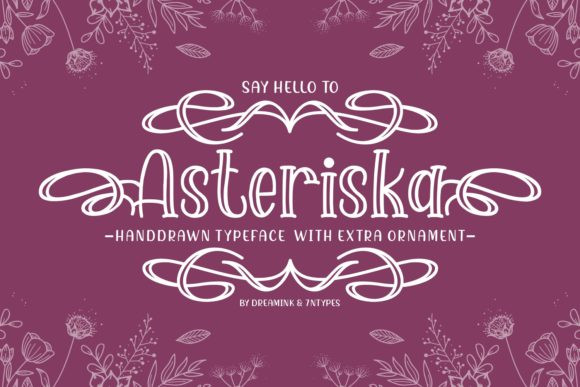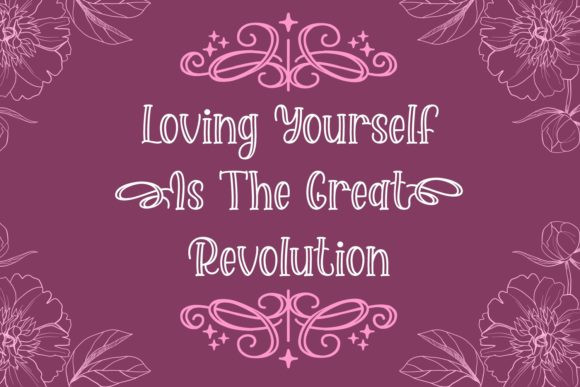
Asteriska Font
Asteriska FontAsteriska feels equally charming and elegant. It looks stunning on wedding invitations, thank you cards, quotes, greeting cards, logos, business cards and every other design which needs a handwritten touch.